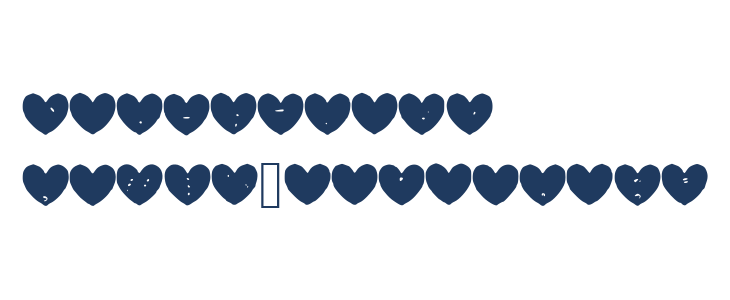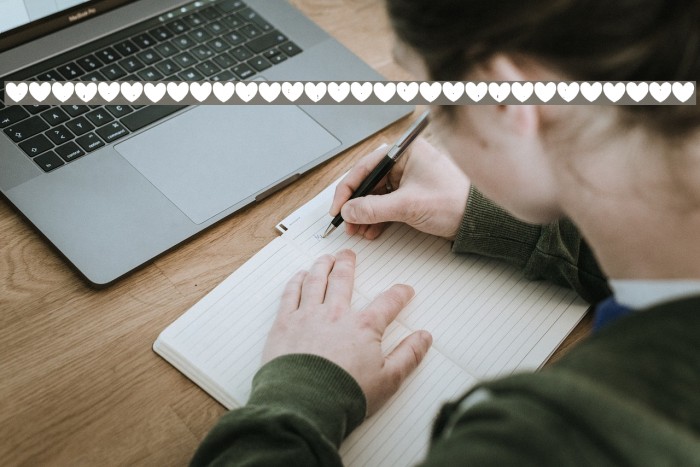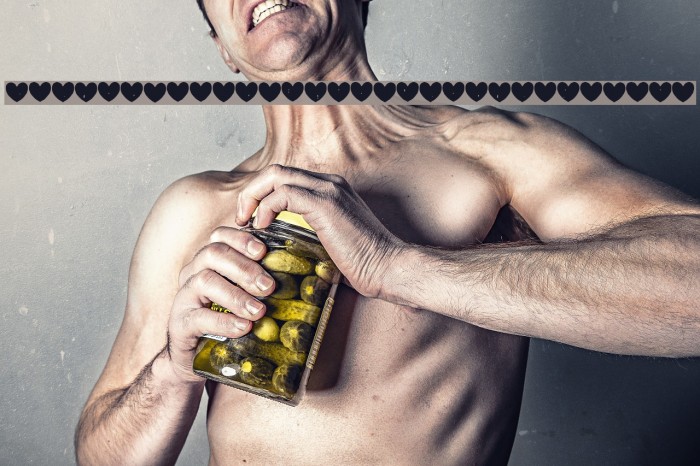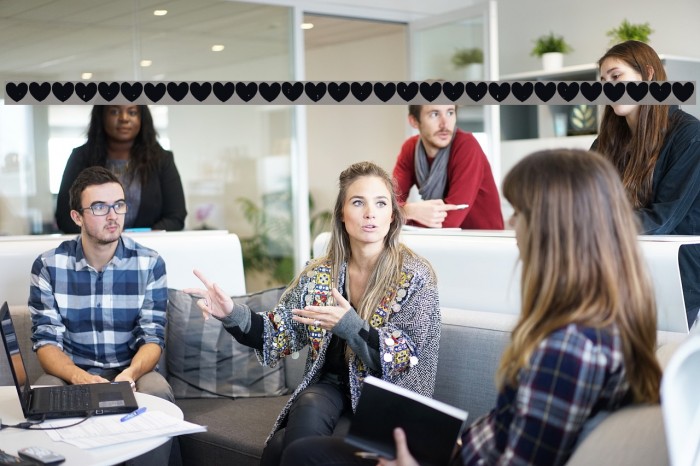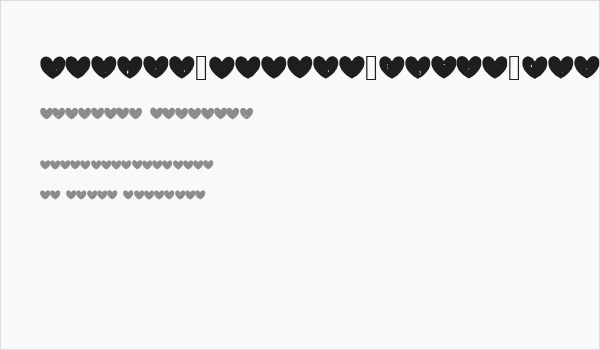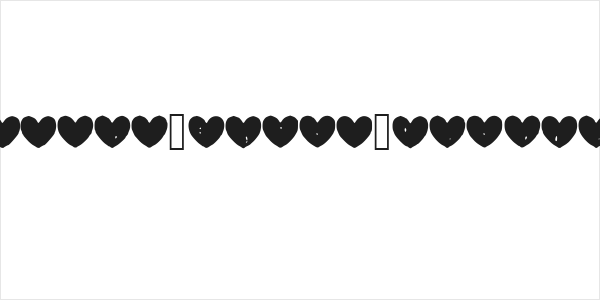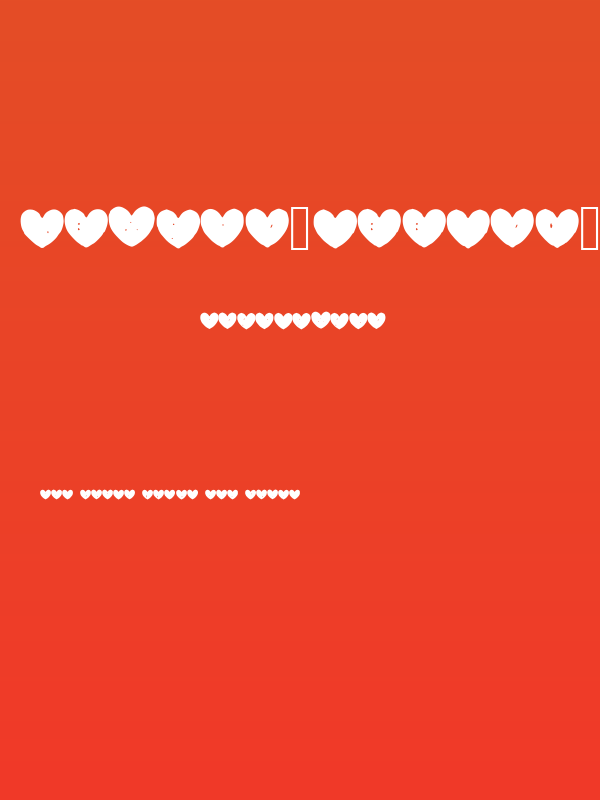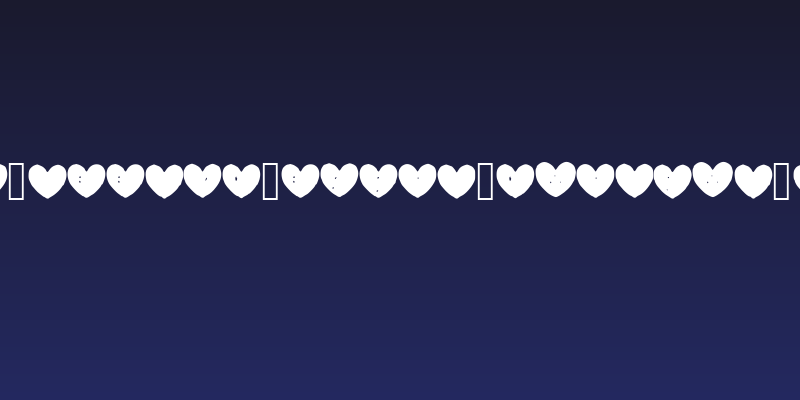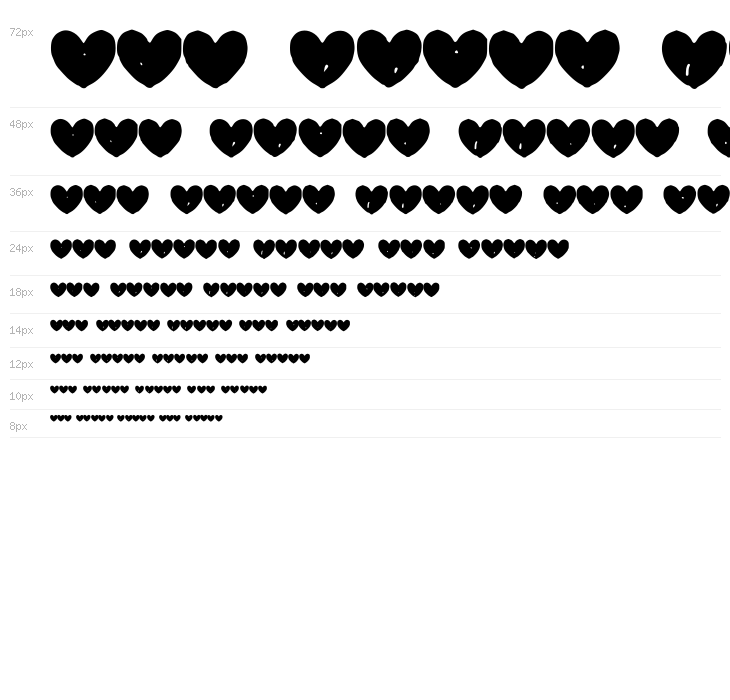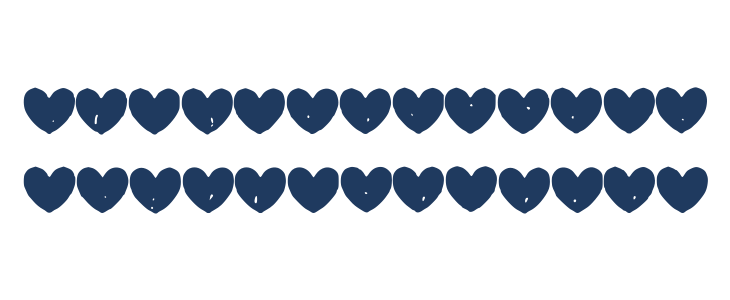
Hearty_Geelyn_Edits_Natural_Pencil Font
Hearty_Geelyn_Edits_Natural_Pencil Description
A decorative pattern consisting of repeated hand-drawn heart shapes with subtle texture and irregularities, resembling a pencil or marker sketch. The hearts are solid black with small white marks, giving a natural, handcrafted appearance.
| Overall Style | Decorative, Hand-drawn, Playful |
| Use Case | Borders, Decorative elements, Themed graphics |
| Proposed Projects | Greeting cards, scrapbooking, decorative borders, invitations, playful branding, social media graphics. |